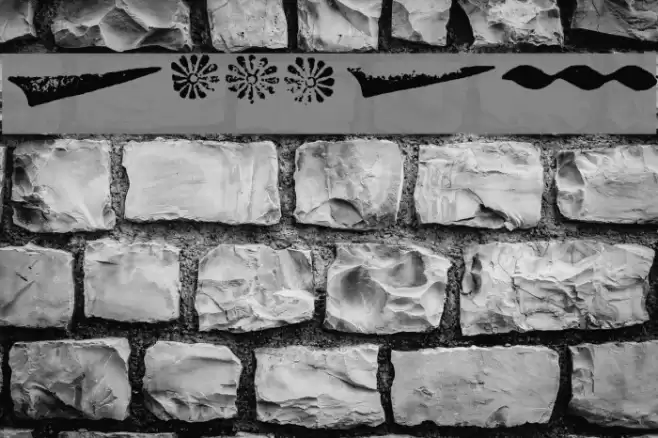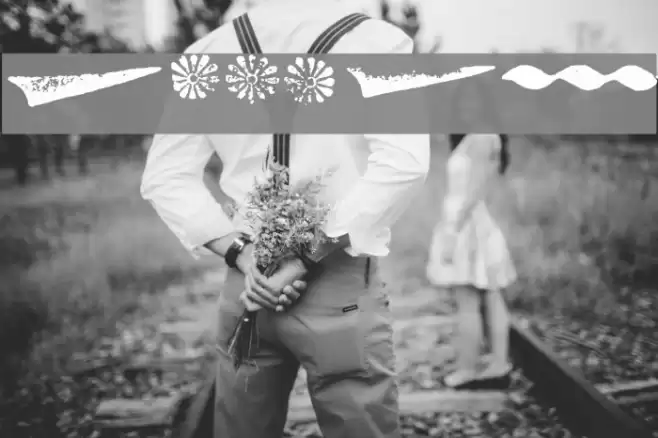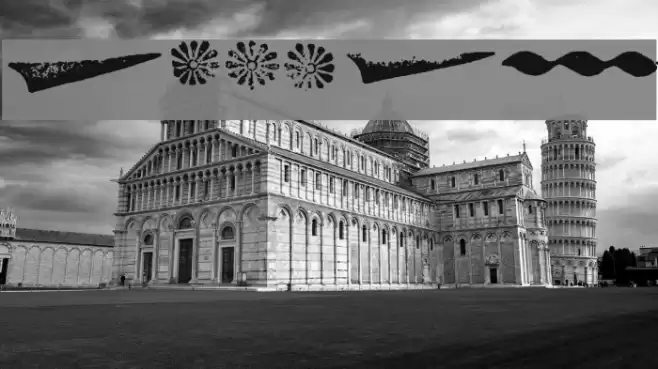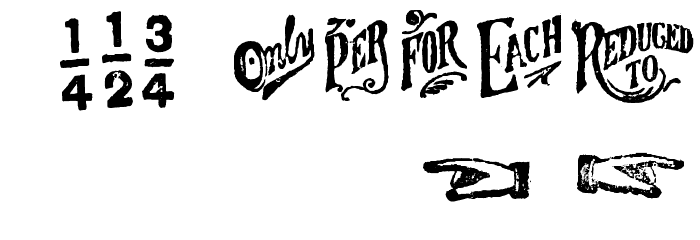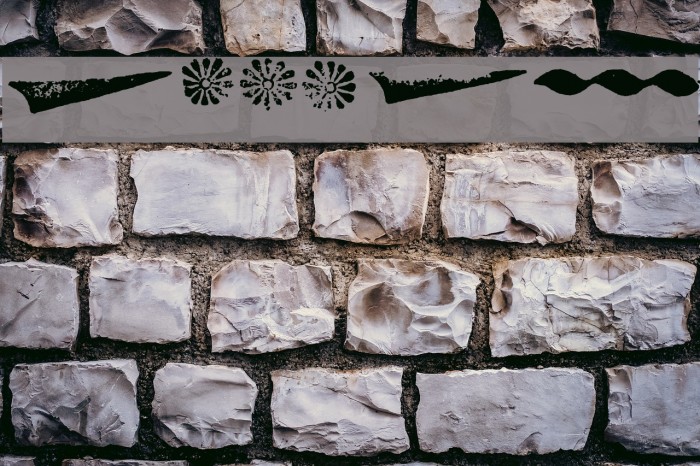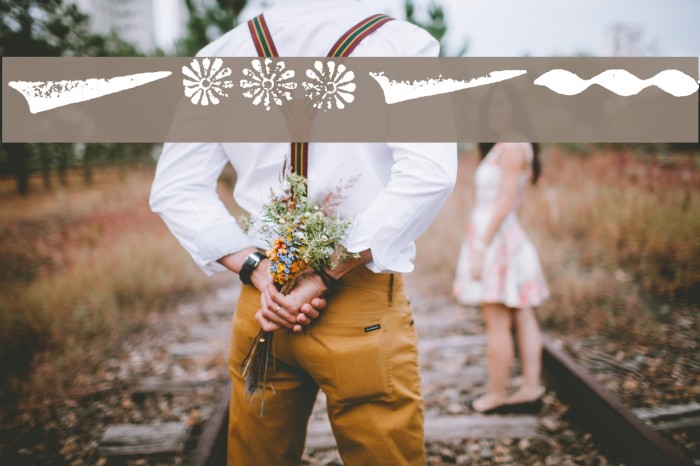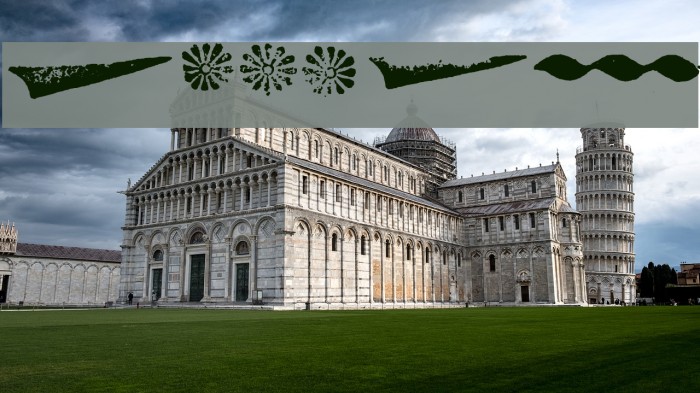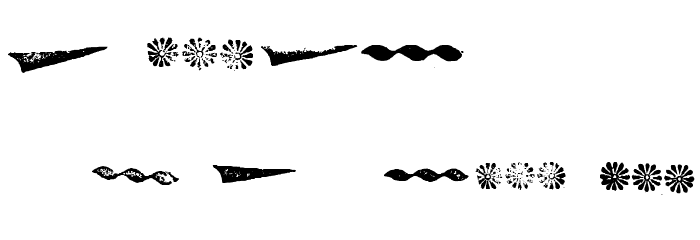
FultonMarkersSymbols Font
FultonMarkersSymbols Description
This collection features a variety of decorative symbols and vintage-style text elements. The symbols include ornate floral patterns, arrows, and pointing hands, each with a distressed, antique appearance. The text elements are stylized with a bold, vintage flair, reminiscent of old signage or advertisements. The numbers are presented in a fraction format, adding to the retro aesthetic. This set is ideal for creating a nostalgic or historical feel in design projects, offering a unique blend of decorative and textual elements.
A vintage-style collection of decorative symbols and stylized text elements from Uncategorized fonts.
- Proposed Projects: Ideal for vintage-themed posters, retro advertisements, historical recreations, or any project needing an antique touch.
- Overall Style: Vintage
- Use Case: Logos, Posters, Decorative elements